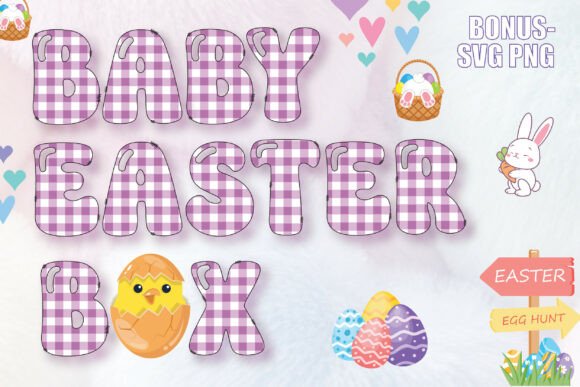
Baby Easter Box: A Festive Display Font for Spring Projects
When a seasonal project needs an immediate dose of charm, the right typeface does most of the heavy lifting. Baby Easter Box is a display font built for exactly that purpose. It doesn't whisper; it announces spring with a joyful, boutique-inspired voice. The core of its design is its thick, bubbly letterforms, each filled with a classic purple and white gingham pattern. This isn't just a solid color—it's a texture, a memory of picnic blankets and baby dresses, woven directly into the characters. The result is a typeface that feels both sweet and substantial, perfect for creating an instant "wow" factor in designs where the primary goal is festive appeal.
This font operates on a specific frequency. It's not for body copy in a technical manual or for understated elegance. Its personality is sunny, whimsical, and undeniably cute. Think of it as the typographic equivalent of a decorated Easter egg or a pastel-colored candy. For designers and creators, this strong personality is a tool. It allows you to set a specific mood the moment a viewer lays eyes on the text. The visual weight and playful curves communicate joy, innocence, and celebration without needing a single supporting illustration.
Practical Applications for the Whimsical Typeface
Knowing a font's character is one thing; understanding where it works is another. Baby Easter Box excels in applications where display text needs to be the star. For crafters and small business owners, it's a natural fit for custom t-shirts and apparel using sublimation or heat transfer vinyl. The bold, filled design translates well to these mediums, ensuring the text remains legible and impactful on fabric.
For event planners and marketers, consider this display font for festive egg hunt signage, spring festival banners, and seasonal menu boards. Its readability at a distance is a key strength, making it practical for wayfinding and announcements. In the digital realm, Baby Easter Box shines in social media graphics. It's perfect for Instagram story headers, Facebook event covers, and Pinterest pins promoting Easter sales, spring collections, or holiday recipes. The text itself becomes a visual element that grabs attention in a fast-scrolling feed.
Integrating Baby Easter Box into Your Design Workflow
Effective use of any premium font involves more than just installation. Start by evaluating project fit. Ask yourself: does the tone of my project align with this font's joyful, boutique aesthetic? If you're designing a corporate financial report, it's a mismatch. If you're creating a flyer for a neighborhood spring carnival, it's ideal. The font's strength is its thematic clarity—use that to your advantage.
Next, consider font pairing. Because Baby Easter Box is so distinctive, it pairs best with simple, neutral companions. A clean sans serif font for body text or a straightforward serif font for subtitles can provide necessary contrast and ensure overall readability. Avoid pairing it with other highly decorative script fonts or handwritten fonts, as this can create visual clutter and diminish the impact of both. The goal is to let Baby Easter Box handle the headlines and key phrases, while supporting typefaces manage the informational load.
Review the included character set and styles. Does it include the punctuation, numerals, and special characters your project requires? Test it thoroughly. Place sample text in your actual design mockup to assess readability at the intended size and against your chosen background colors. The gingham pattern is part of its charm, but ensure it renders clearly in your specific application, whether on a printed label or a digital screen.
Finally, understand the licensing. For designers and entrepreneurs creating commercial products—like t-shirts, printed goods, or client work—confirming the font's commercial license is essential. This protects your business and ensures you're using the asset correctly. A well-chosen, properly licensed typeface like Baby Easter Box becomes a reliable part of your design assets toolkit, ready to be deployed whenever a project calls for that specific blend of sweetness and seasonal cheer.
In the landscape of modern typography, tools that offer strong thematic personality are invaluable. They save time, communicate instantly, and add a layer of professional polish that DIY solutions often lack. Baby Easter Box isn't just a set of letters; it's a pre-packaged mood, a shortcut to creating designs that resonate with the spirit of spring. For anyone tasked with capturing that fleeting, joyful energy, it’s a worthy addition to the creative arsenal.